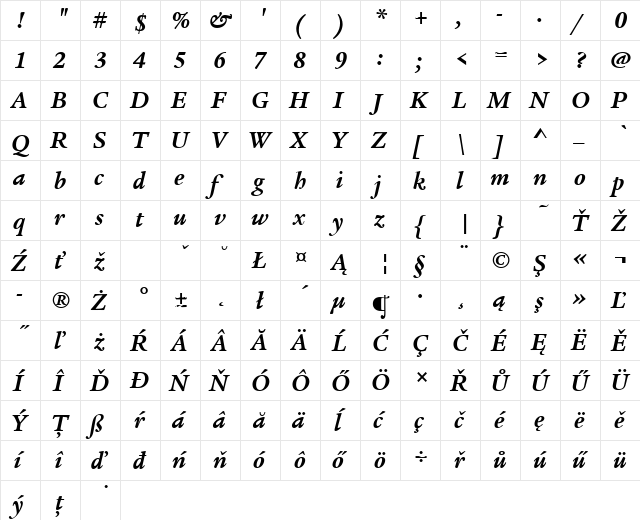
LegacySerItcTEE Bold Italic
Design Context for LegacySerItcTEE Typeface
LegacySerItcTEE is a composed and adaptable typeface that performs quietly and consistently across a wide range of design contexts. The slanted form adds forward momentum and visual energy. The heavy weight commands attention and anchors typographic hierarchies.